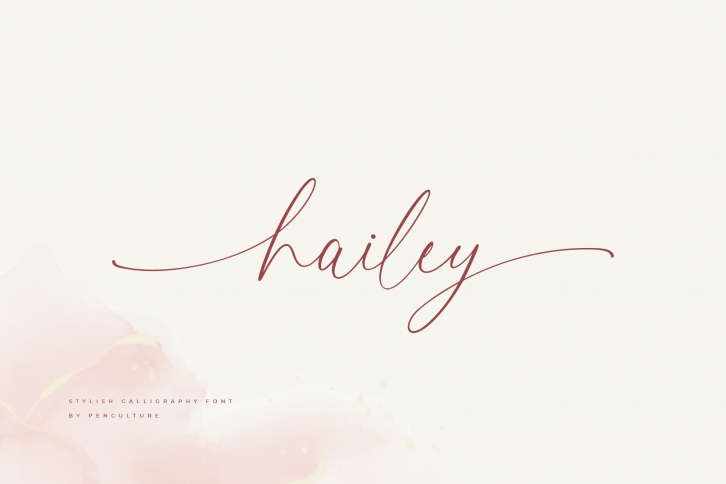
Hailey is a modern calligraphy font that is perfect for wedding invitations, branding, logo, and many more creative projects. This font is PUA encoded, which means you can access all of the glyphs and swashes with ease!